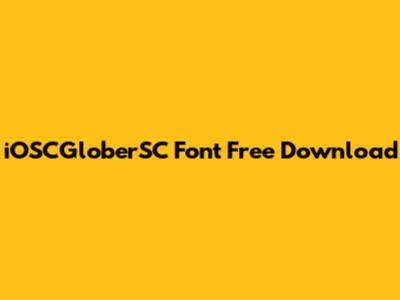
- Clean and Modern Design: The font features a sleek, minimalist design that makes it perfect for contemporary projects.
- Excellent Legibility: It’s designed for readability, ensuring your text is clear and easy to understand, even at smaller sizes.
- Versatile Use: Suitable for a wide array of applications, including web design, print, and mobile interfaces.
- Balanced Aesthetics: The font strikes a balance between functionality and visual appeal, making it a great choice for various design needs.
- Pairing: Experiment with different font pairings to create a balanced and harmonious design. iOSCGloberSC pairs well with both serif and sans-serif fonts.
Are you looking to download iOSCGloberSC font for free? You've come to the right place! In this article, we'll dive deep into everything you need to know about this sleek and modern font, where to find it, and how to use it in your projects. Whether you're a designer, developer, or just a font enthusiast, understanding the ins and outs of iOSCGloberSC can significantly enhance your creative toolkit. So, let's get started and explore the world of iOSCGloberSC!
What is iOSCGloberSC Font?
First off, let's talk about what iOSCGloberSC actually is. iOSCGloberSC font is a contemporary sans-serif typeface known for its clean lines and balanced design. It's often praised for its versatility, making it suitable for a wide range of applications, from user interfaces and websites to print materials and branding. Its legibility and aesthetic appeal make it a favorite among designers aiming for a modern and sophisticated look. The font maintains clarity across various sizes and resolutions, which is crucial for responsive design and ensuring a consistent user experience on different devices. The subtle nuances in its character shapes contribute to its distinct personality, setting it apart from more generic sans-serif options. Moreover, its extensive character set supports multiple languages, making it a practical choice for global projects. Its adaptability extends to different design contexts, whether it's used for headings, body text, or display purposes. This versatility is a key reason why iOSCGloberSC is often the go-to font for designers seeking a balance of functionality and style. Its clean, unobtrusive appearance ensures that the content remains the focus, while its subtle design elements add a touch of sophistication.
Key Features and Characteristics